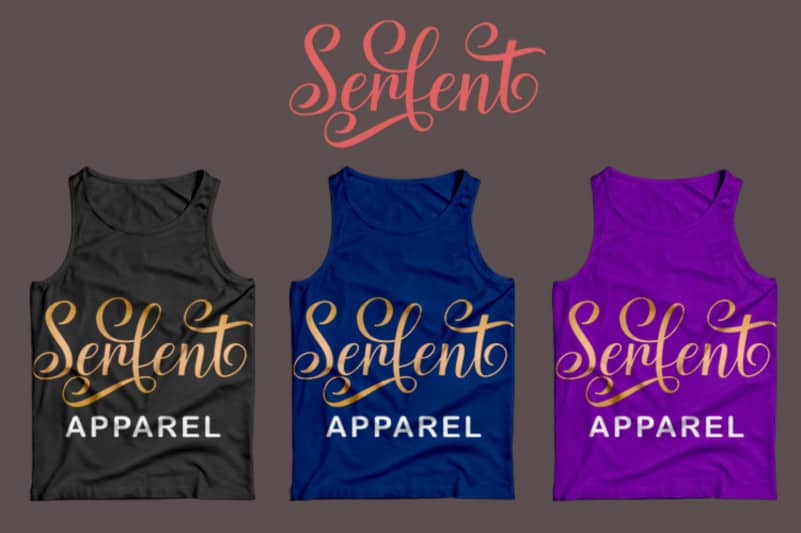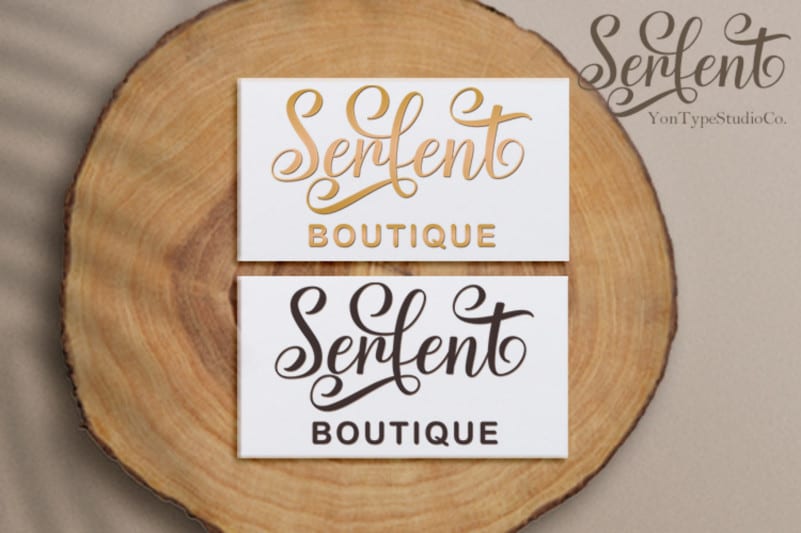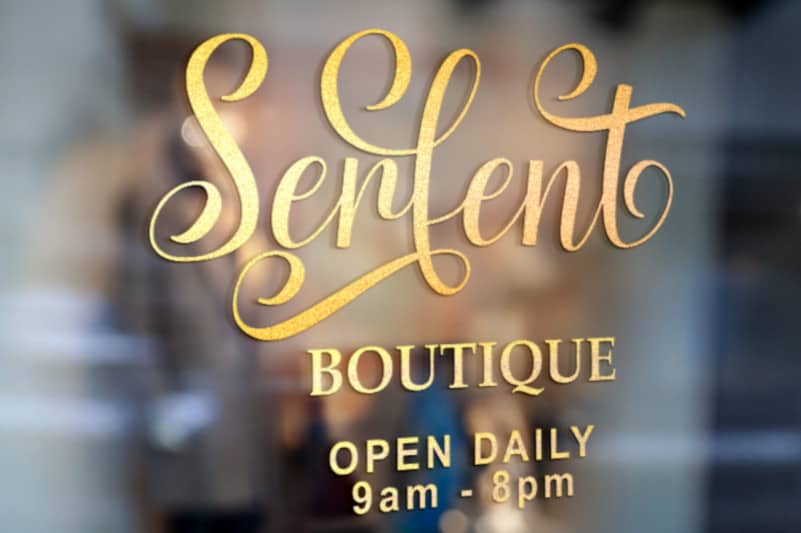
Serfent Script Font
Serfent Script Font is a handwritten font that is very distinct, subtle and timeless. It looks amazing on wedding invitations, thank you cards, quotes, greeting cards, logos, business cards and any other design that needs a handwritten touch.
Serfent has many alternative letters, especially lowercase letters that will beautify your design project